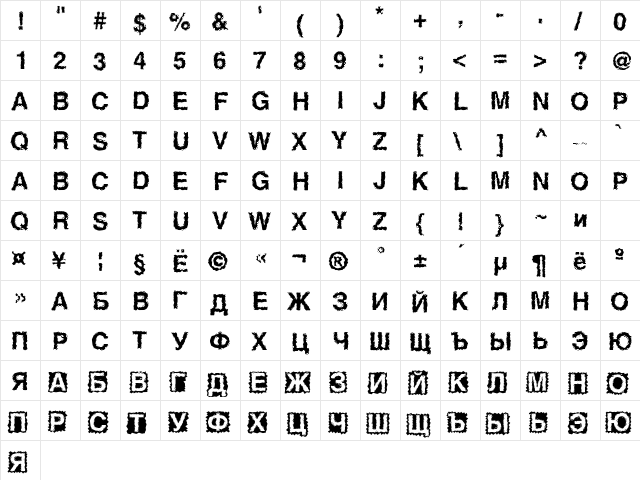
Ben Hard Life Bold
Design Context for Ben Hard Life Typeface
Ben Hard Life is a composed and adaptable typeface that performs quietly and consistently across a wide range of design contexts. The heavy weight commands attention and anchors typographic hierarchies.